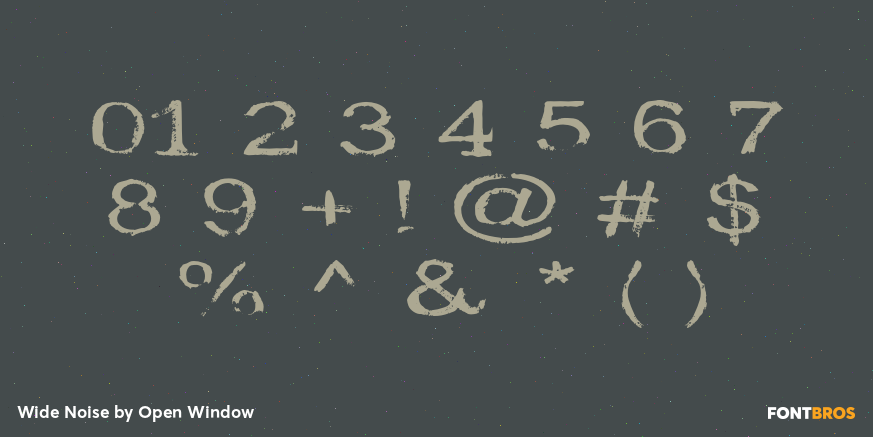
Wide Noise
Font Family by Open Window
Wide Noise is a distressed display font with a broad, weathered look that feels raw, loud, and intentionally imperfect. Its worn texture gives headlines and short phrases a gritty, poster-ready presence, making it a strong choice when you want type that feels immediate and tactile.
This family includes 1 font style from Open Window. The rough finish and wide stance suit eye-catching uses like posters, apparel graphics, bold branding, packaging, and other decorative display work where a cleaner font would feel too polished.